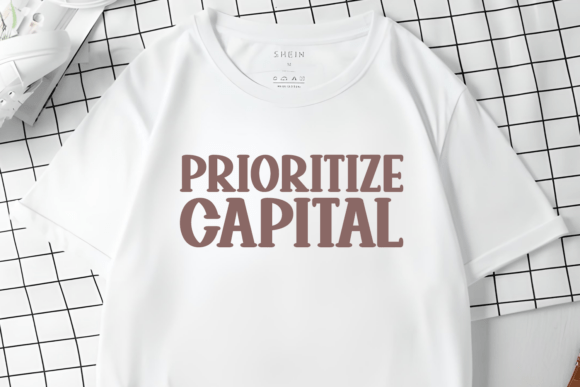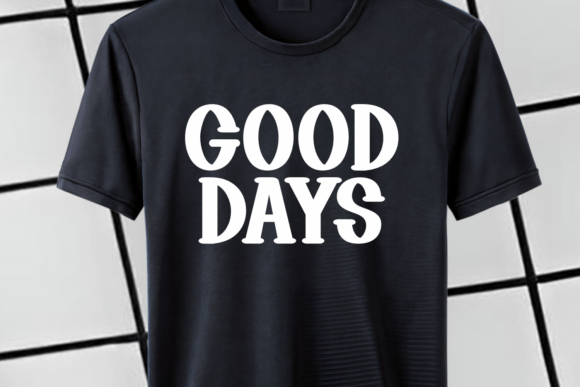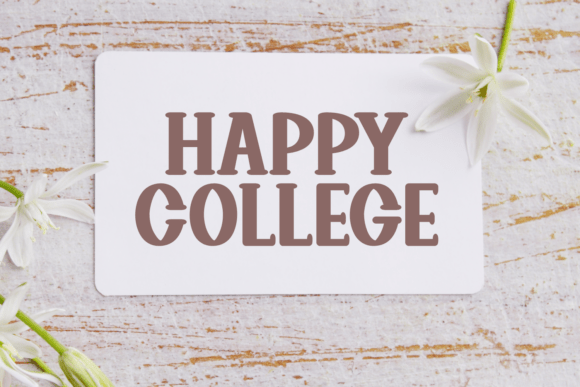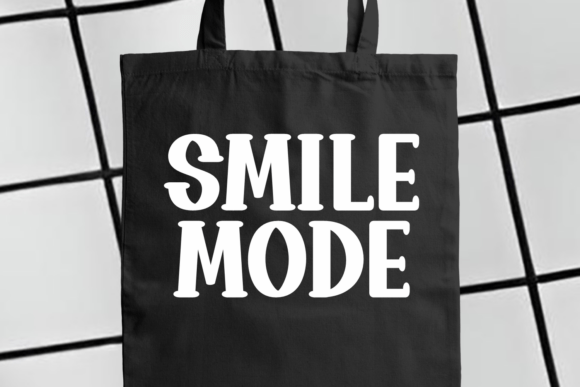
Famous Antiques Font: A Playfully Whimsical Typeface for Creative Projects
Are you looking for a font that can add a touch of fun and animation to your designs? Look no further than the Famous Antiques font, a handcrafted typeface that combines retro and modern characteristics in a unique and playful way. This delightful font is perfect for comic and cartoon designs, children’s print materials, and any project that requires a bold and whimsical touch.
A Unique Blend of Retro and Modern Characteristics
The Famous Antiques font boasts a distinctive bubble-like structure, complete with doodle embellishments that give it a playfully whimsical feel. Its robust, fat lettering creates a bold statement, making it ideal for designs that require a strong visual impact. The font’s versatility is also one of its standout features, allowing it to be used as a sticker or quote font for a variety of applications, from T-shirts and greeting cards to tote bags and children’s print designs.
Perfect for Comic and Cartoon Designs
The Famous Antiques font is a natural fit for comic and cartoon designs, thanks to its fun and animated aesthetic. Its bold, playful lettering is reminiscent of classic cartoons and comics, making it an excellent choice for designers looking to create engaging and eye-catching content. Whether you’re working on a children’s book, a comic strip, or a cartoon series, this font is sure to bring your characters to life.
A Magic Touch for Children’s Print Designs
The Famous Antiques font is also well-suited for children’s print designs, including materials such as activity sheets, coloring books, and educational resources. Its whimsical and playful nature makes it an excellent choice for designs aimed at kids, and its bold lettering ensures that text will stand out and grab attention. Whether you’re a teacher, a parent, or a designer, this font is a great choice for creating engaging and fun print materials for kids.
Ideal for Scrapbooking and Silhouette Works
In addition to its uses in comic and cartoon designs, the Famous Antiques font is also a great choice for scrapbooking and silhouette works. Its unique and playful aesthetic adds a touch of personality to any project, and its versatility allows it to be used in a variety of creative ways. Whether you’re creating a personalized scrapbook, a custom decal, or a silhouette design, this font is sure to add a touch of whimsy and charm.
A Great Branding Element
The Famous Antiques font is not only suitable for creative projects, but it’s also an excellent choice as a branding element. Its well-defining upper and lowercase letters, numbers, and punctuation make it an all-encompassing solution for typography demands. Whether you’re looking to create a logo, a tagline, or any other branding material, this font is sure to make a bold and memorable statement.
Key Features of the Famous Antiques Font
- Unique blend of retro and modern characteristics
- Playfully whimsical, handcrafted design
- Robust, fat lettering creates a bold statement
- Versatile and adaptable for various design applications
- Well-defining upper and lowercase letters, numbers, and punctuation
- Ideal for comic and cartoon designs, children’s print materials, scrapbooking, and silhouette works
- Excellent choice as a branding element
In conclusion, the Famous Antiques font is a fantastic choice for designers and crafters looking to add a touch of fun and animation to their projects. Its unique blend of retro and modern characteristics, combined with its playfully whimsical design, make it an excellent fit for a wide range of creative applications. Whether you’re working on a comic book, a children’s print design, or a branding project, this font is sure to bring a smile to your face and a touch of personality to your work.